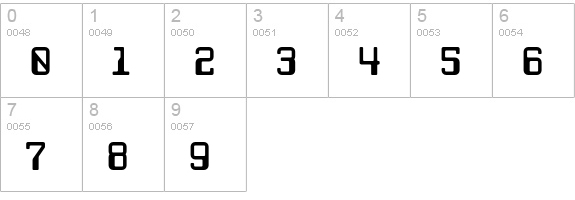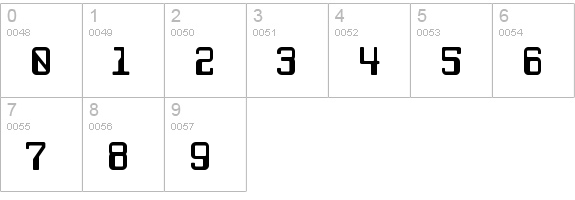
JLS Space Gothic-R NC font is a mesmerizing display typeface that effortlessly captures the essence of the gothic genre while adding a futuristic twist. With its bold and angular letterforms, this font exudes a sense of mystery and darkness, making it perfect for creating captivating designs that demand attention. The unique design of JLS Space Gothic-R NC font is characterized by its sleek and sharp lines, which give it a modern and edgy look. Each letter is meticulously crafted, making it a true work of art. Whether you're designing a movie poster, album cover, or branding materials, this font will add a touch of sophistication and intrigue to your projects. One of the best aspects of JLS Space Gothic-R NC font is that it is freely available to download at FontsMarket.com. This means that you can use this stunning typeface in your personal and commercial projects without any restrictions. Whether you're a graphic designer, a creative professional, or a typography enthusiast, having access to a high-quality font like JLS Space Gothic-R NC for free is an absolute game-changer. Embrace the dark allure of the gothic genre and the futuristic vibes of JLS Space Gothic-R NC font. Let your imagination run wild as you explore the endless possibilities this font offers. Download it today from FontsMarket.com and elevate your designs to new heights.